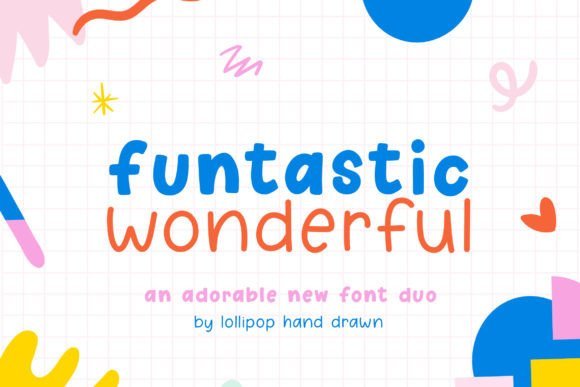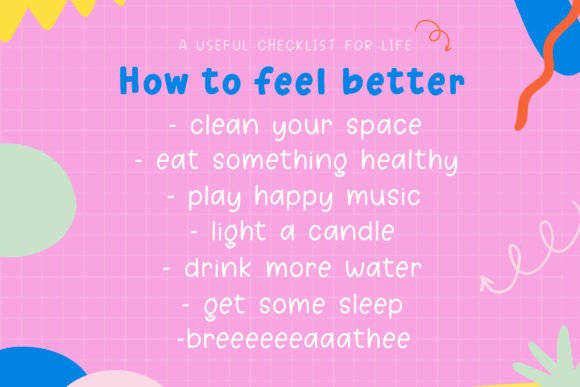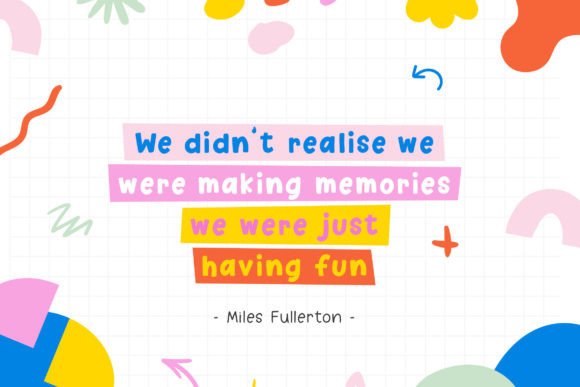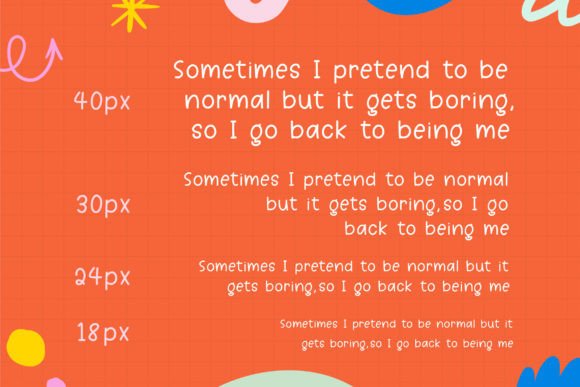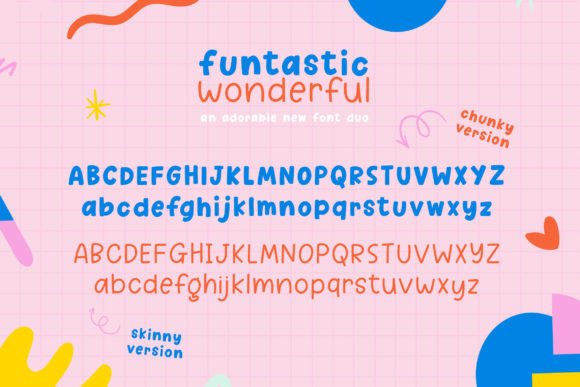
The Perfect Blend of Whimsy and Wonder
Have you ever been stuck in a creative rut, staring blankly at a blank page, and suddenly, a burst of inspiration strikes? For designers, those moments are a godsend. It’s like the universe has handed you a gift, and all you need to do is unwrap it. That’s exactly what happened when I stumbled upon the Funtastic Wonderful Font.
This adorable display font is a masterclass in quirkiness, making it an instant favorite among designers. Whether you’re working on a children’s book, a food blog, or a social media campaign, the Funtastic Wonderful Font is sure to bring a smile to your face and a touch of magic to your design. Its versatility is unmatched, and that’s what makes it so valuable for designers – it can be used in a wide range of contexts, from playful to elegant.
Funtastic Wonderful Font Key Features
- Font Family: Funtastic Wonderful Font comes in 3 unique styles: Regular, Bold, and Italic. Each style is designed to evoke a sense of whimsy and fun.
- Character Set: The font includes a wide range of characters, including uppercase and lowercase letters, numbers, punctuation, and special characters, covering most languages.
- Unique Characteristics: Funtastic Wonderful Font features hand-drawn elements, playful flourishes, and intricate details, making it perfect for designs that require a touch of personality and fun.
Funtastic Wonderful Font Review
I must say, I was a bit skeptical when I first laid eyes on the Funtastic Wonderful Font. The name was a bit too on-the-nose for my taste, and I worried that the font would be too gimmicky. But, after taking it for a spin, I’m happy to report that there’s more to this font than meets the eye.
Here are the things that I think work well:
- ✨ The font is highly customizable, with a wide range of options for color, size, and style.
- ✨ The font is surprisingly versatile, working well for both digital and print applications.
- ✨ The font has a fun, playful vibe that’s perfect for creative projects.
However, there are a few limitations that I think are worth mentioning:
- ⚠️ The font can feel a bit over-the-top in certain contexts, so be sure to use it sparingly.
- ⚠️ The font’s whimsical nature can make it difficult to read in certain situations, particularly at small sizes.
Overall, I think the Funtastic Wonderful Font is a solid choice for designers looking for a fun, playful font. While it may not be the most sophisticated option out there, it’s a great choice for projects that need a bit of whimsy and personality.
Funtastic Wonderful Font: A Practical Application Guide
Getting Started with Funtastic Wonderful Font
Tips for Getting the Most Out of Funtastic Wonderful Font
To get the most out of the Funtastic Wonderful Font, try using it in combination with other bold and playful fonts. You can also experiment with different font sizes and colors to create visually appealing designs.
Common Use Cases for Funtastic Wonderful Font
The Funtastic Wonderful Font is perfect for creating eye-catching titles and headings, as well as adding a playful touch to your designs. It’s ideal for use in social media graphics, advertisements, and marketing materials.